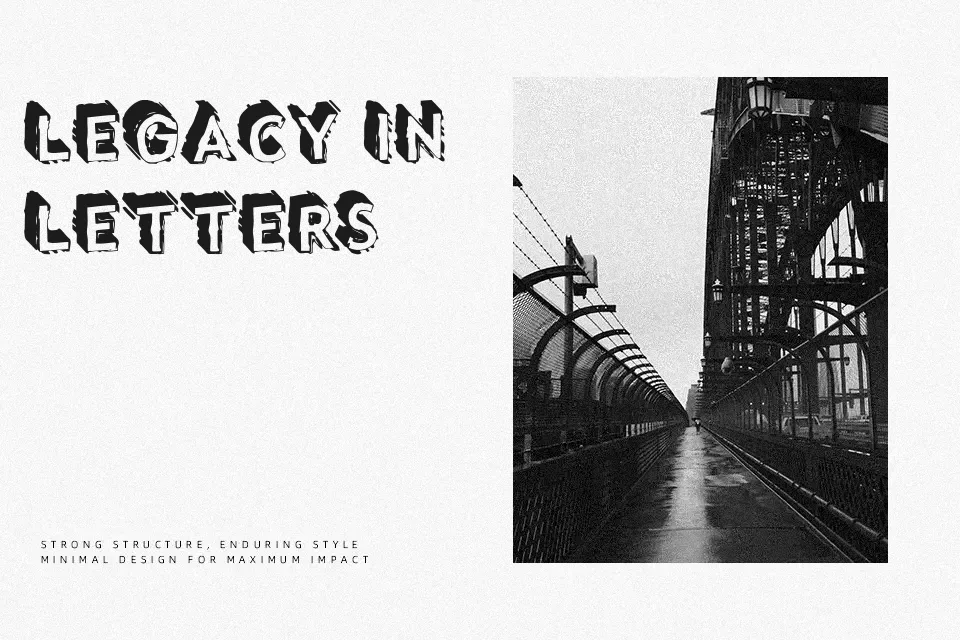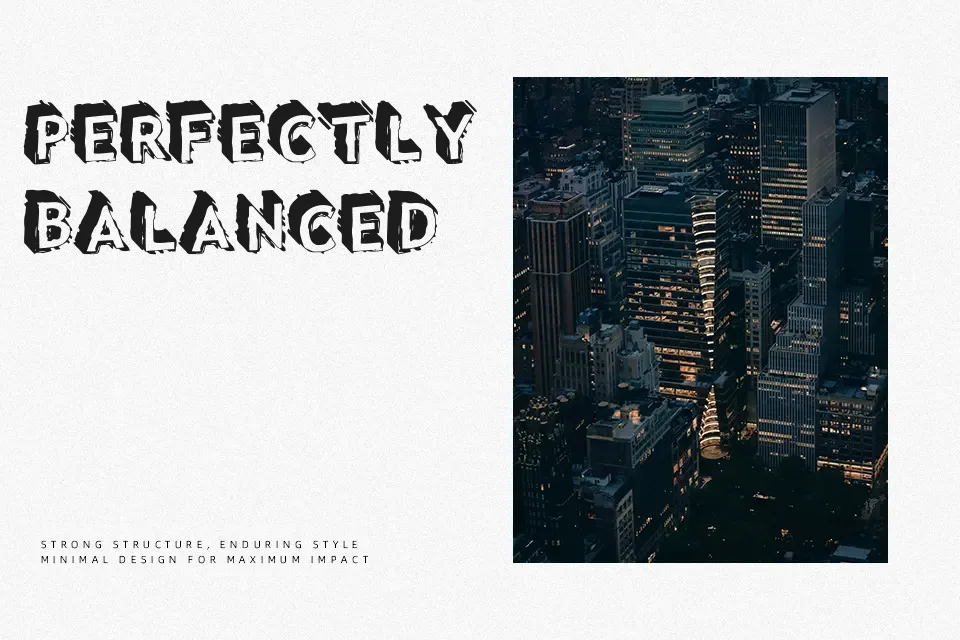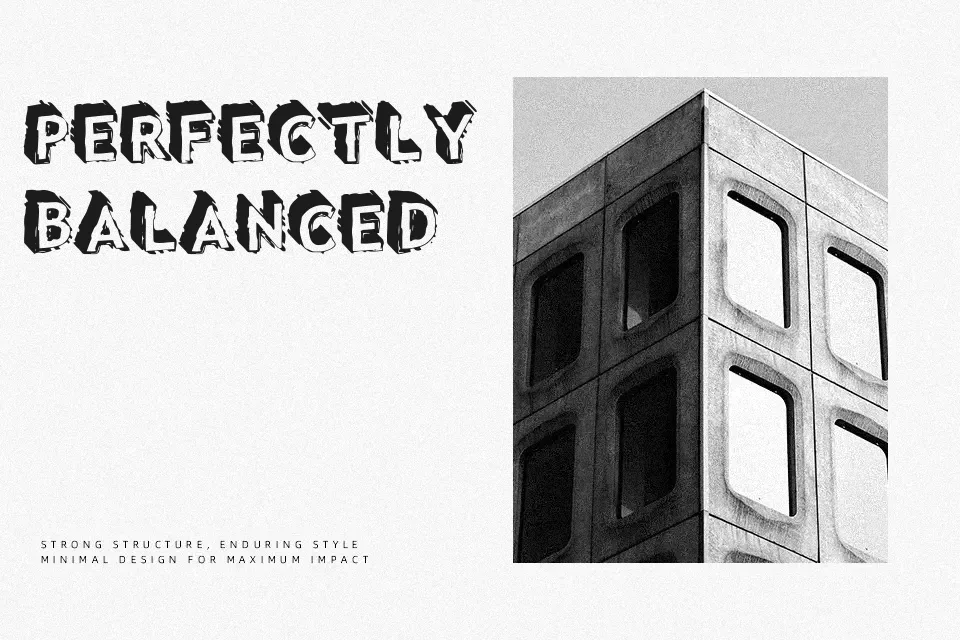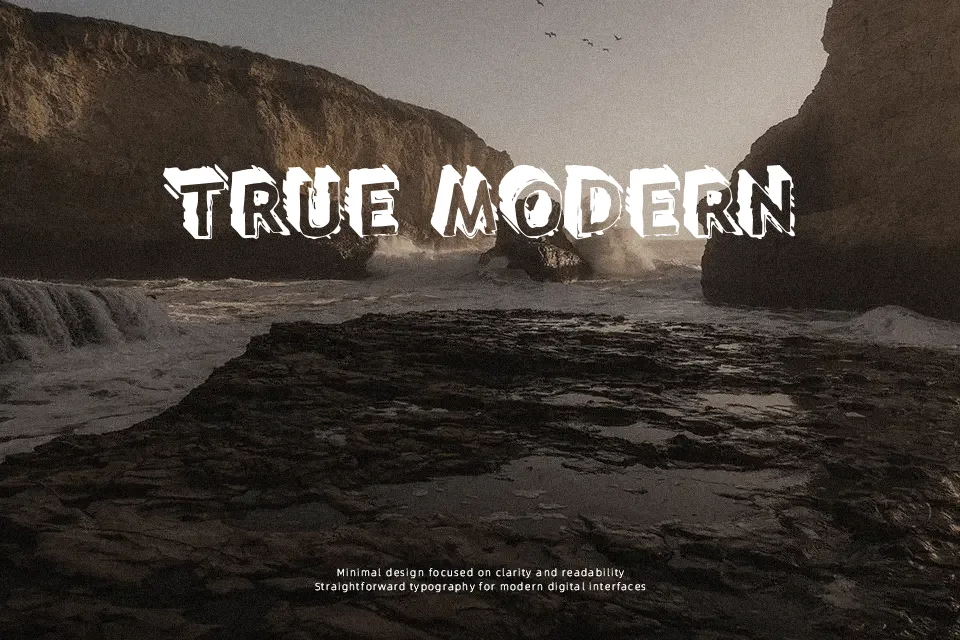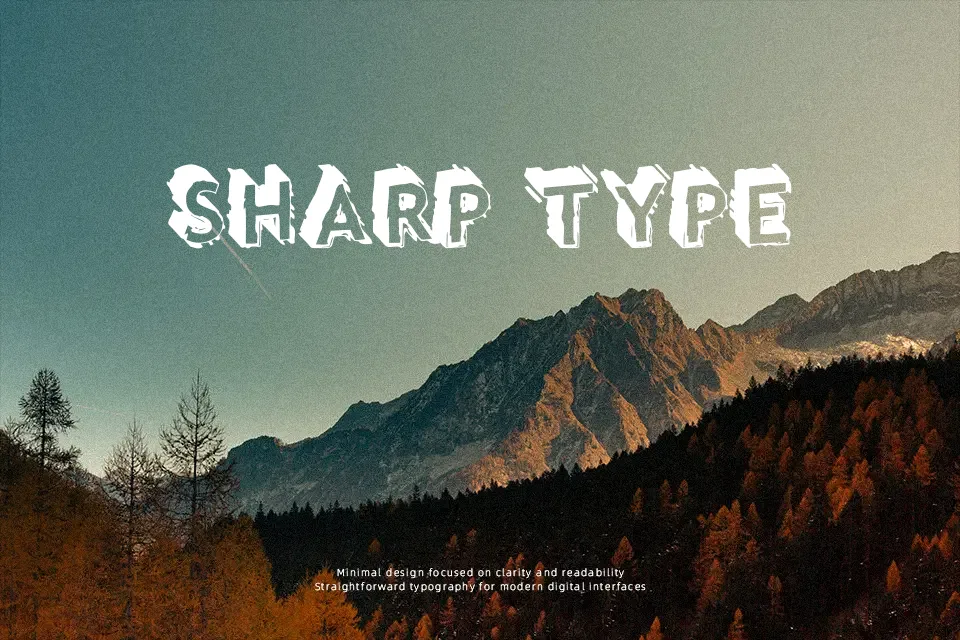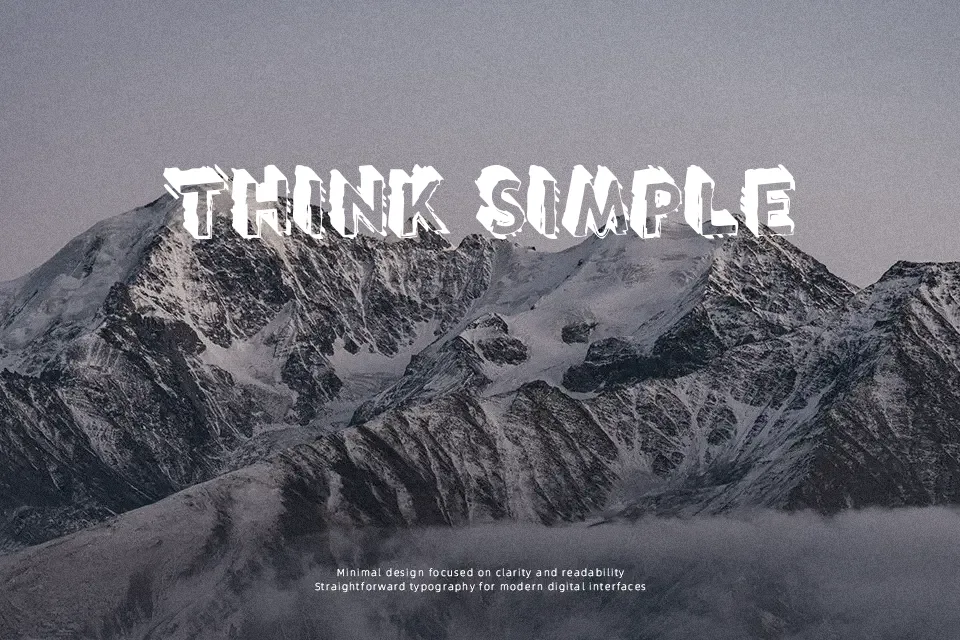
Taco Truck Militia Font
Designed by Fontmonger
Taco Truck Militia Font uses rough-edged, heavily distressed display letterforms that create an uneven, weathered texture across a line of text. Its strokes appear bold and irregular, while the varied contours give uppercase characters a forceful handmade rhythm. The design reads most clearly in large headlines, where the damaged outlines remain visible and contribute to the overall impact. It suits short phrases for posters, restaurant signage, and graphic prints rather than extended copy. The spacing helps individual letters remain recognizable at display sizes, but the distressed detail becomes harder to parse in small text or dense settings.
Best For: food truck signage,restaurant poster headlines,apparel graphics,music event posters
Perfect for headline, music, and poster, with a bold and decorative style.